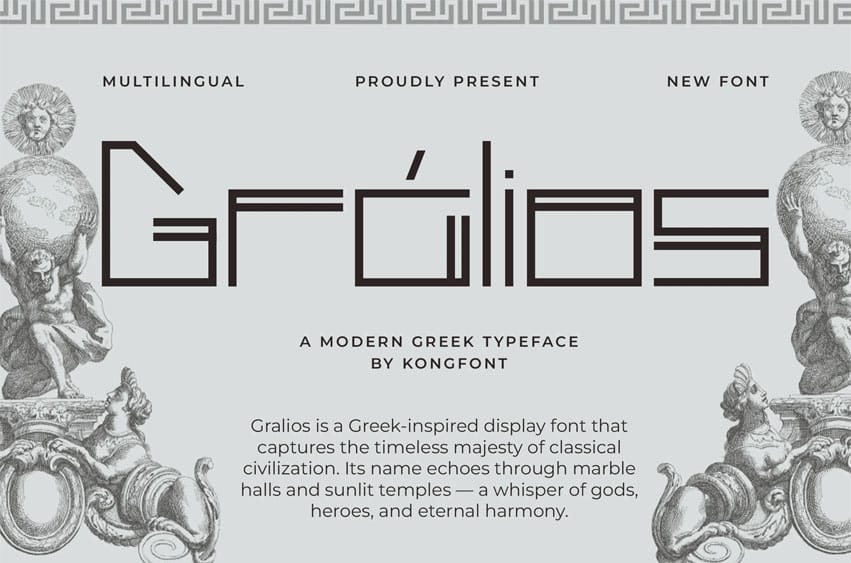
Gralios Font is a modern Greek typeface that bridges the timeless beauty of classical lettering with the clarity and precision of modern design. Each character in Gralios is thoughtfully crafted to reflect the heritage of Greek typography while maintaining a sleek, contemporary aesthetic.
Perfect for branding, editorial layouts, cultural projects, and digital designs, Gralios offers exceptional readability and elegant proportions. Its refined strokes and balanced structure make it suitable for both headlines and body text, ensuring a professional and sophisticated look across various applications.
Whether you’re designing for print, web, or identity systems, Gralios brings a touch of classical grace with a modern edge to every project.